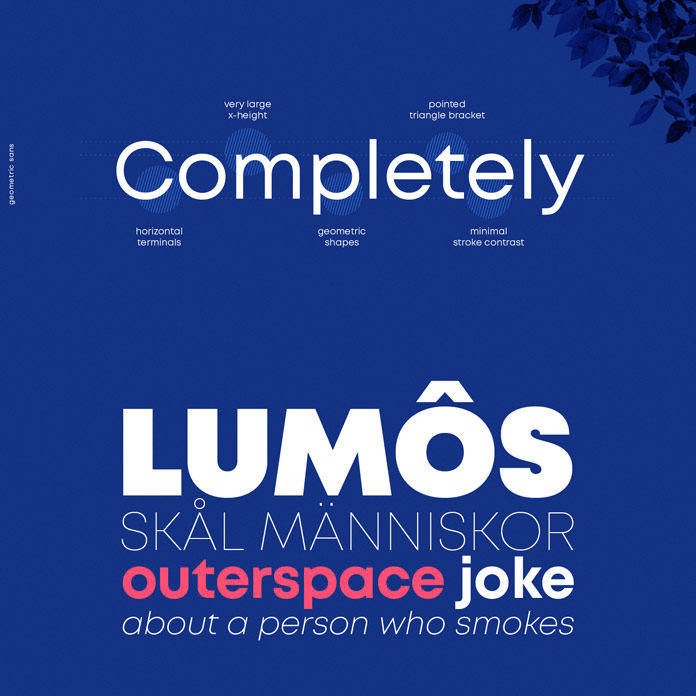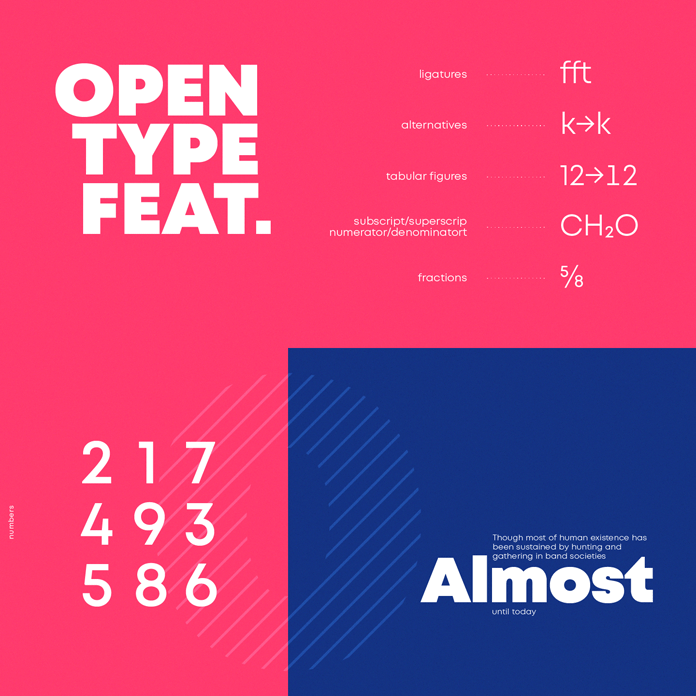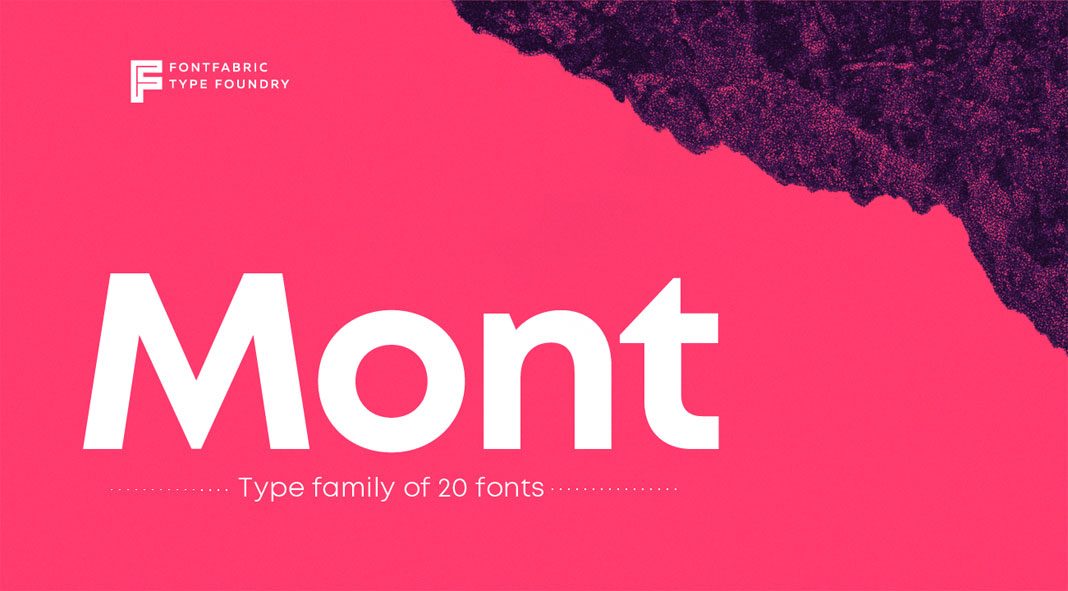
Mont, a sans-serif type family of 20 fonts.
Designed by Mirela Belova and Svet Simov for foundry Fontfabric, Mont is a recently published sans-serif font family that comes in 10 weights plus matching Italics. The various weights range from a delicate Hairline to a massive Black version. The Mont font family supports more than 130 languages including Latin, Cyrillic, and Greek writing systems. This sturdy geometric type is also equipped with numerous OpenType features such as tabular figures, ligatures, fractions, case-sensitive forms, superscripts, and subscripts, among others. Thanks to the various weights and its well-readable design, you can use it for both striking headlines and long text sections. It’s even a great choice for branding and logo designs. Whether print or on screen, the Mont family is always a great choice for contemporary typography. Just scroll down to get a quick first impression. For further information on all features and options, just click on the following link.